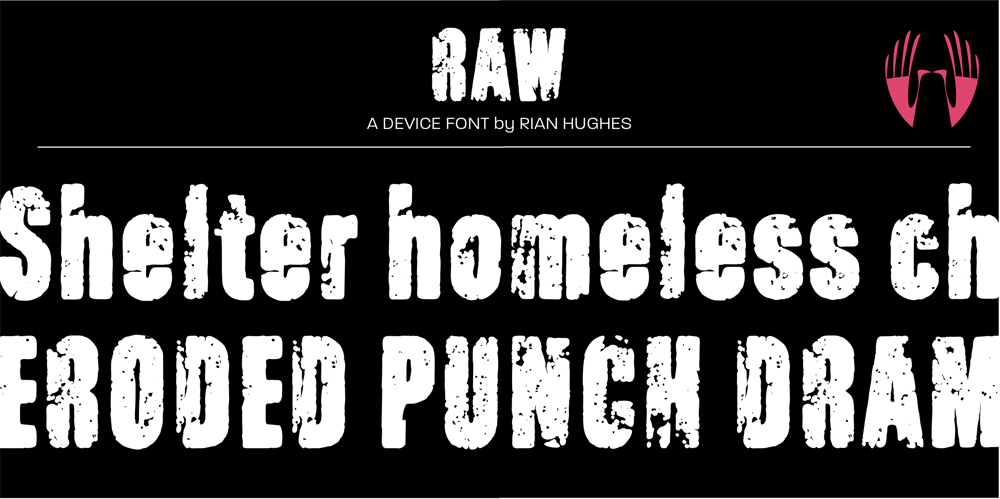
Raw Font Family was designed by published by Device. Raw contains 1 styles and family package options. Raw was designed in 2006 for Shelter, the UK homeless charity. It was originally called “Cathy”, after the film “Cathy Come Home”, which was instrumental in inspiring the founding of the charity. Now reworked with more “inkiness”, it is released as part of the Device range.